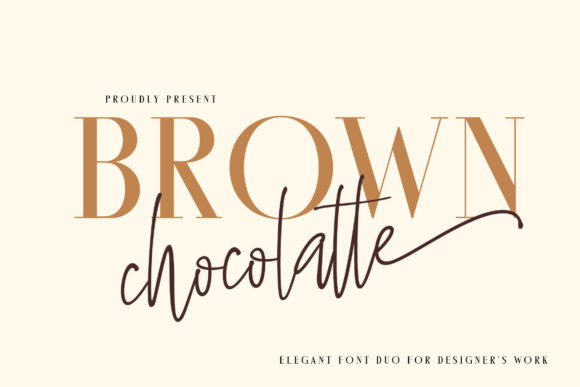
Behold Brown Chocolatte Duo Font, an Exquisite Creation for your Blogging Adventures!
Escape the mundane world of digital text and step into a realm of visual enchantment, with Brown Chocolatte Duo Font. A seamless blend of elegance, sophistication, and modern flair, this font family transforms your words into art. Its graceful script exudes timeless beauty, while its contemporary edge keeps your text current and relatable.
Crafted with meticulous precision, Brown Chocolatte Duo Font takes inspiration from the art of calligraphy, meticulously capturing its essence in a digital form. The result is a font that echoes the beauty of handwritten strokes, infusing each letter with a touch of warmth and personality. Each character dances across the page, captivating the reader with its delicate charm and intricate details.
Unleash your creativity and watch your blog take on a life of its own, with Brown Chocolatte Duo Font. The script's flowing strokes lend themselves perfectly to captivating headers, alluring titles, and enticing paragraphs that draw readers in and keep them captivated. Experiment with different styles, sizes, and colors, and witness the transformation of your blog into a visually stunning masterpiece.
It's time to say goodbye to boring, predictable fonts and embrace the extraordinary with Brown Chocolatte Duo Font. Its PUA encoding unlocks a treasure trove of glyphs and swashes, empowering you to add depth, dimension, and visual intrigue to your text. Unleash your imagination and create stunning designs that command attention and spark curiosity.
Discover the elegance of Brown Chocolatte Duo Font today, and elevate your blog to new heights. With its versatility, sophistication, and captivating charm, this font is your ticket to a blogging experience that captivates, engages, and inspires. Dare to be different, embrace the power of beauty, and let your words dance with grace on the digital canvas.